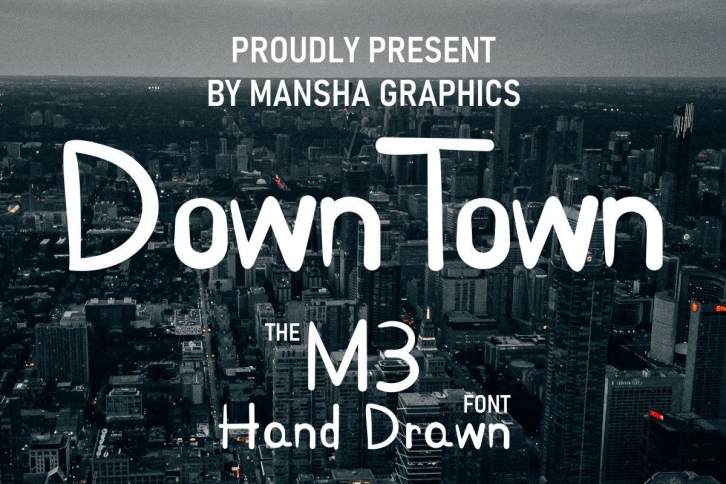
M3 Hand Drawn is a cute, simple and casual handwritten font. No matter the topic, this font will be an incredible asset to your fonts’ library, as it has the potential to elevate any creation.Â